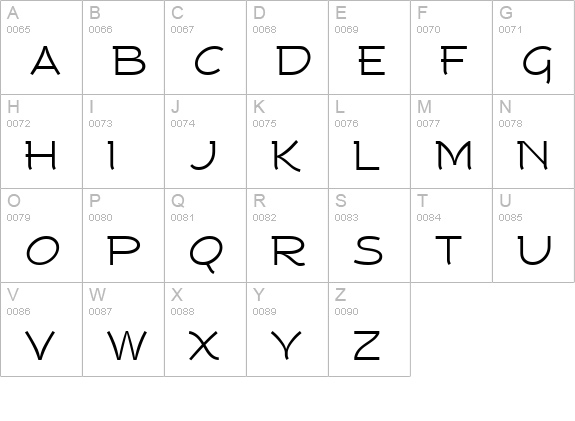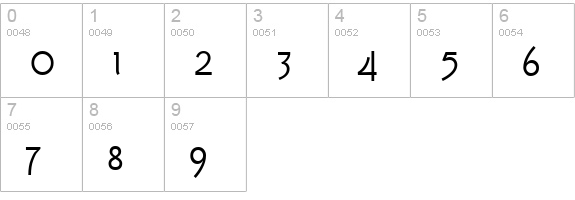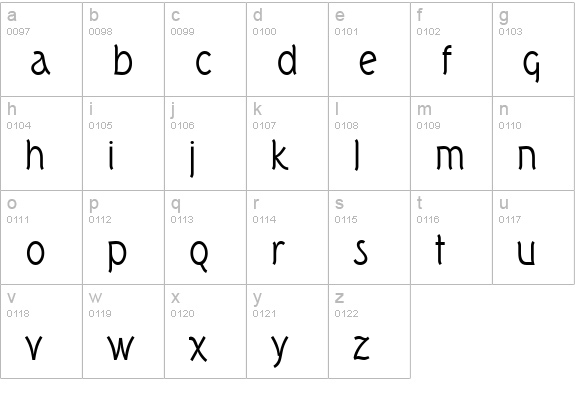
Introducing Tork, a captivating and versatile font that effortlessly combines modern elegance with timeless charm. Designed to make a bold statement, Tork boasts clean lines and sleek curves that exude confidence and professionalism. Its balanced proportions and well-defined characters make it perfect for a wide range of design projects, from branding and advertising to editorial layouts and web design. With its extensive character set, Tork offers endless possibilities for creative expression. Whether you're aiming for a sleek and sophisticated look or a more playful and energetic vibe, this font has got you covered. Its attention to detail and meticulous craftsmanship ensure legibility and readability across various mediums, ensuring that your message always shines through. But what truly sets Tork apart is its accessibility. We believe that great design should be available to all, which is why Tork is freely available to download at FontsMarket.com. This means that designers, creatives, and typography enthusiasts from all walks of life can enjoy the beauty and versatility of Tork without any limitations. So go ahead and unleash your creativity with this stunning font - the possibilities are limitless.